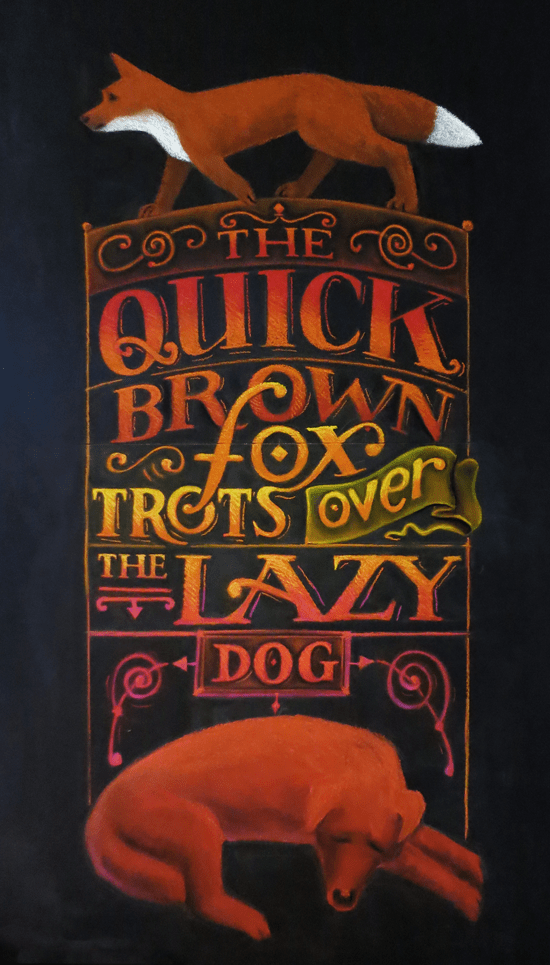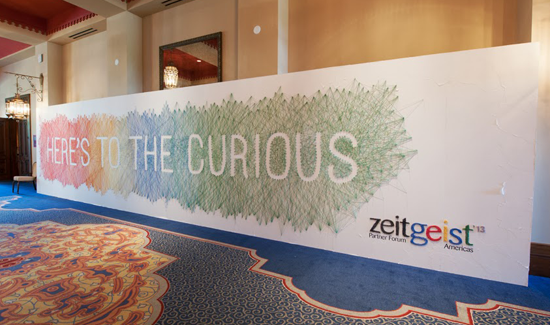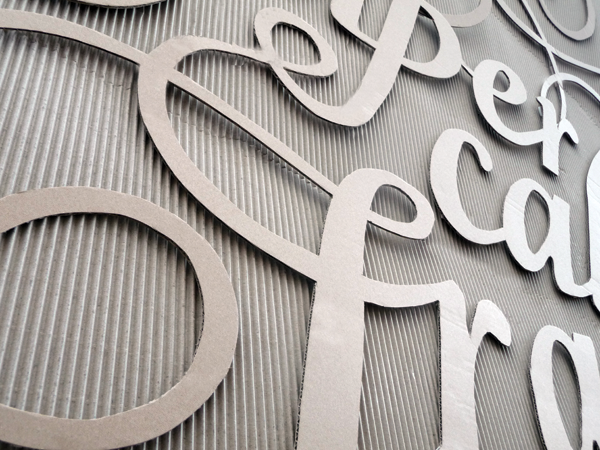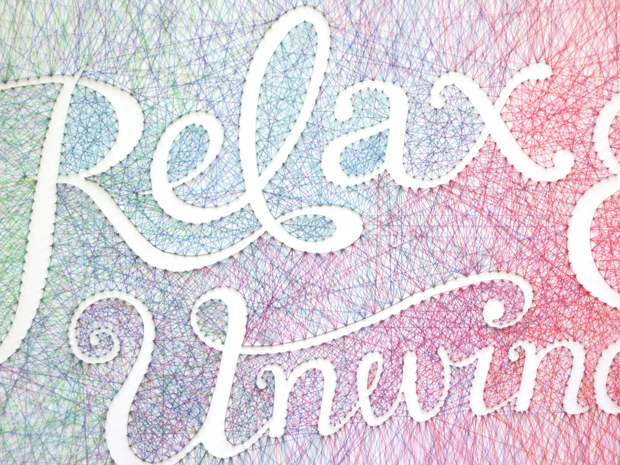
Lettering Legend - Dominique Falla Interview
It's somehow already that time again to bring you a new 'Lettering Legend'. This months 'Lettering Legend' is Dominique Falla. A significant person from the lettering community, that has inspired those around her and those worldwide. If you're not sure what a 'Lettering Legend' is, or what the requirements are, you can catch up here. Last month I interviewed Scott Biersack and he provided some very helpful information. This month is no different, I interviewed Dominique Falla and she had lots of interesting things to say.
Dominique lives in Australia and has an educational and professional lettering background. When creating different types of lettering work she uses a wide range of materials, including chalk, card, nails and thread.
Not only has Dominique inspired with her own lettering work, but she also founded the Typism Books, which I'm sure many of you will have heard of. Two of our 'Lettering Legends' Emma Holmes and Belinda Love Lee have both been published within the Typism Book series. The books are filled with lettering goodness. You can read below about why Dominique started the book and get some useful lettering tips too!
If you had to choose only one lettering medium to work with from now onwards, what would it be and why?
"I love tactile typography because I get bored easily and so it is fun to play with different materials."
You founded the Typism book. For those that haven’t come across it before, could you describe what the Typism book is?
"The Typism Book is a little pocket book of some of the best black and white typography, custom type, calligraphy and hand lettering in the world. There are two so far. Book one sold out and Book two is close to selling out. I have two boxes left."
What led you to starting the Typism book, and how did you go about selecting the work that has been included in the book/s?
"I first off had the idea to run a small typography conference in Australia and the book idea grew out of that. For people around the world who couldn’t make it to the conference, they could still be a part of Typism."
You have quite an extensive background in design. Including a Degree, a Masters, a lot of work experience, awards and scholarships. Do you think a professional creative background is necessary if a person is wanting to succeed in a career around lettering?
"No, not at all. My degrees are for my work as a university lecturer. All that matters if you want a career around lettering is to practice, practice. Become really good at what you do, show people what you are doing on social media and never stop improving your craft, then you will have a successful career around lettering."
Your portfolio shows you’ve worked on a few collaborations. What has been your favourite collaboration to work on?
"I love collaborating with my husband on larger projects. We have travelled a little bit recently to work on installations. He is very strong, so he is a great help when it comes to hammering 7000 nails in three days for Google for example. We also get to travel together and be creative, so he is my favourite collaborator, but I love working with the clients and design firms as well. I’m always surprised by the creative projects people offer us. They have a better vision for my work than I do sometimes."
Is it best to be comfortable at lots of different styles of lettering or develop your own style?
"Personally, I think try lots of different styles at the start so that you are sure you have tried everything and then the trick is to develop your own unique version of something. You will never be better at Gothic Blackletter than the medieval scribes, you will never be better at roman capitals than Roman stone carvers, so don’t even try. Become the best in the world at your particular style or interpretation, which is usually a combination of styles. Your goal is to try everything in order to become good at one thing."
What advice or tips would you give those first starting out at lettering?
"Get a note book and a pencil. Carry it with you at all times. Spend every spare minute sketching, drawing, doodling. Practice makes Progress. You should also get an Instagram account and vow to post something every day. The cheer squad you will build up over time gives you the confidence to keep going. The mistake most people make is to not share anything until they are “good enough”. These days, social media is the best way to build an audience and it is better to show progress, not perfection. There is no such thing. Start today and practice every day."